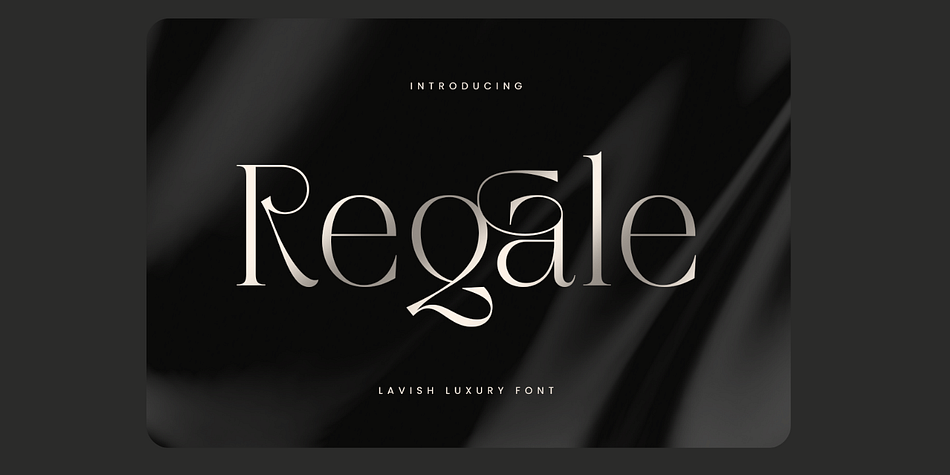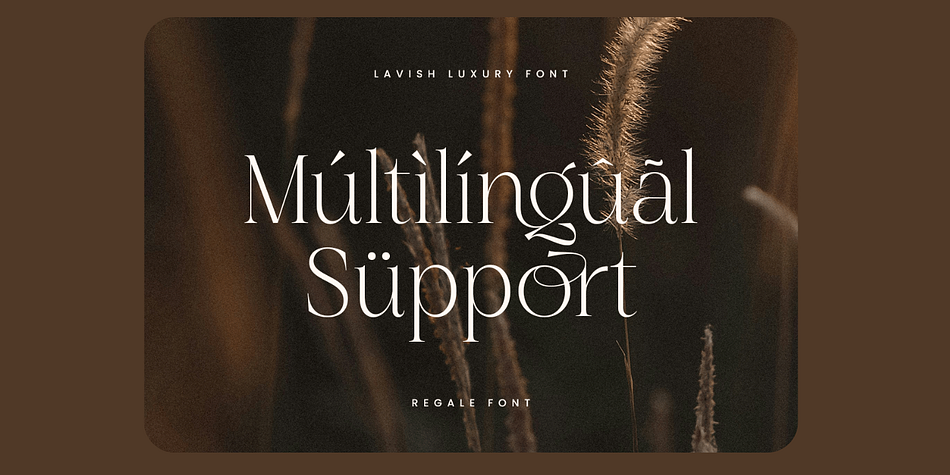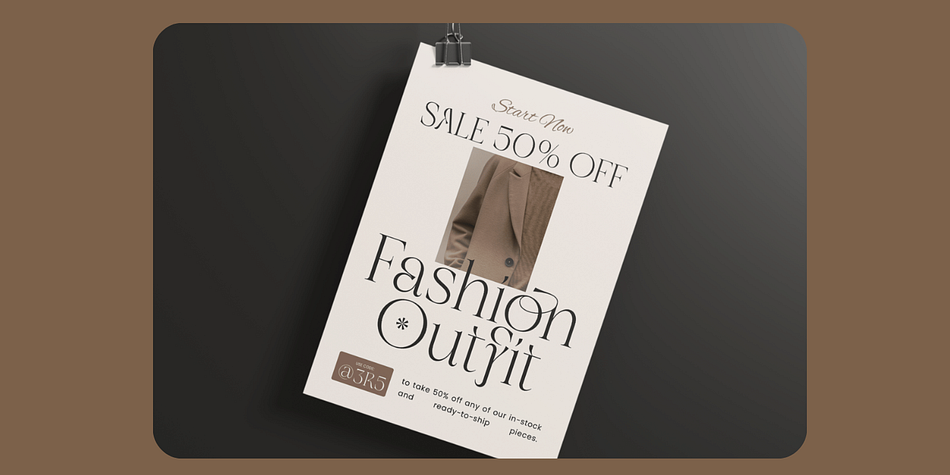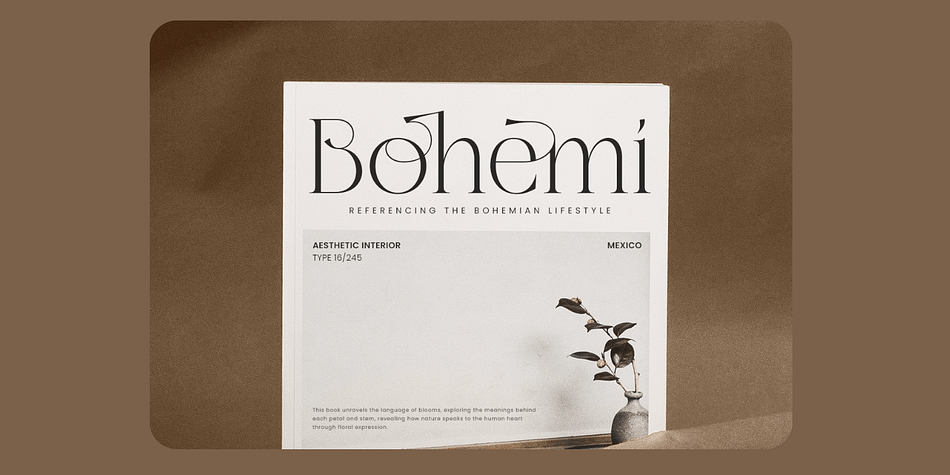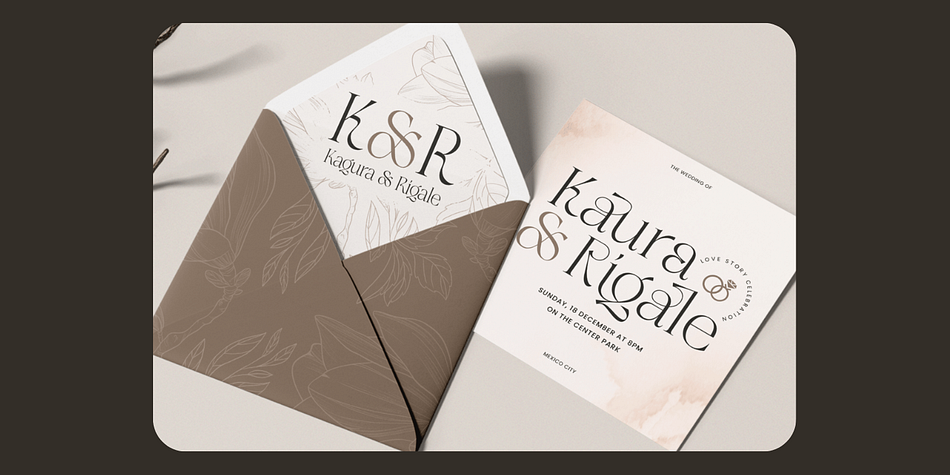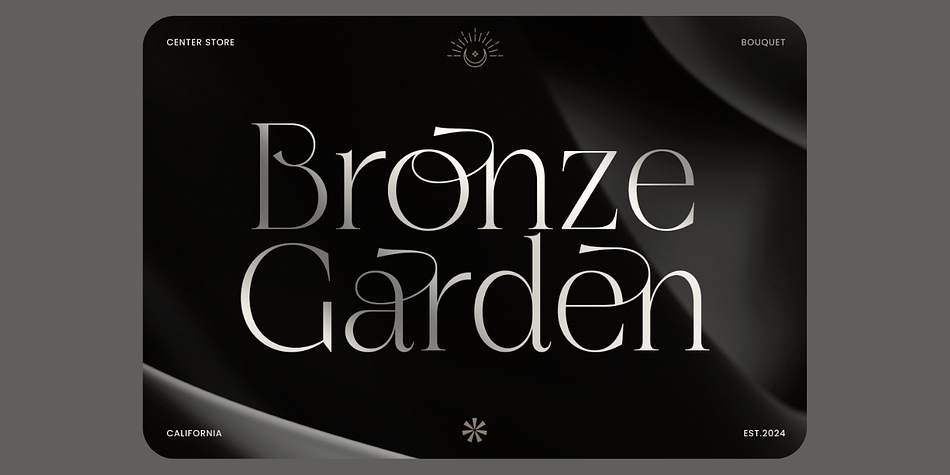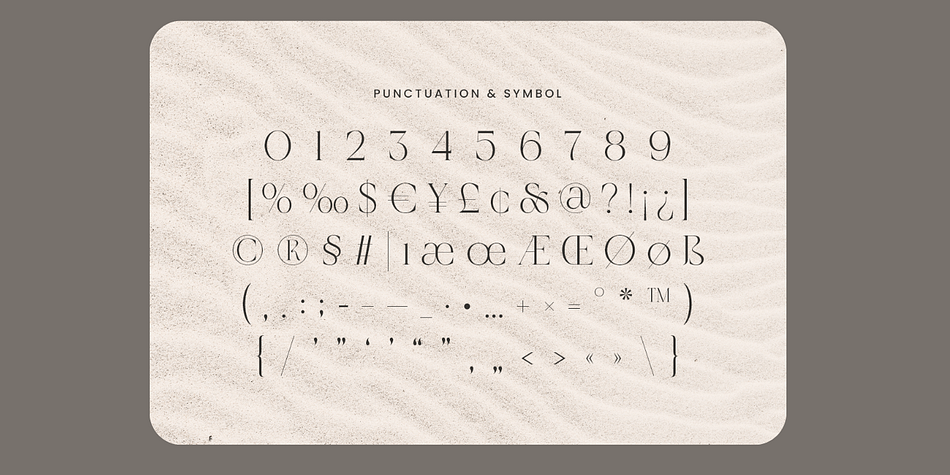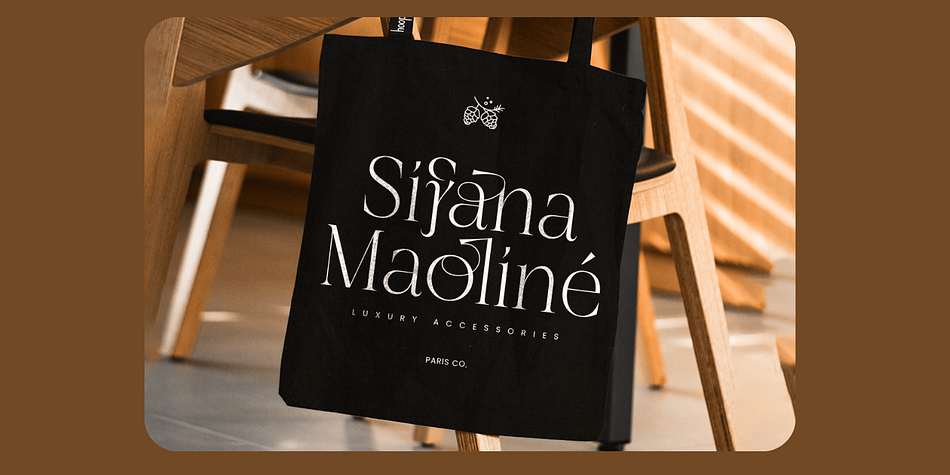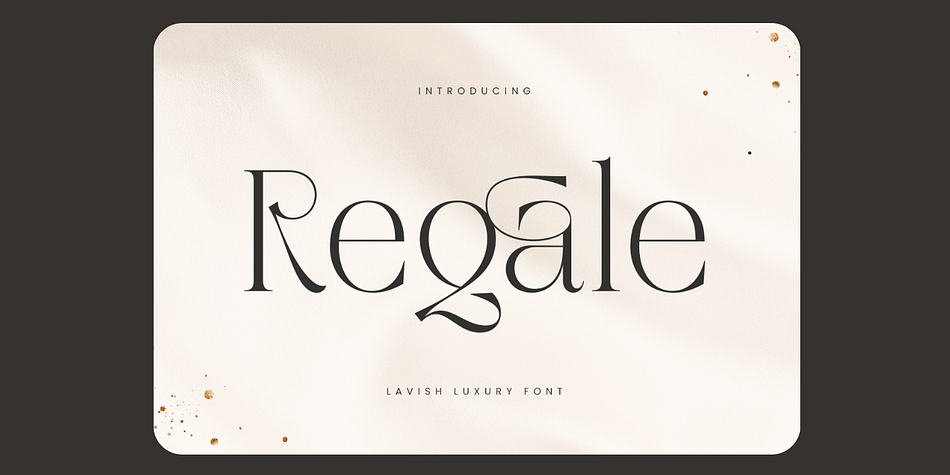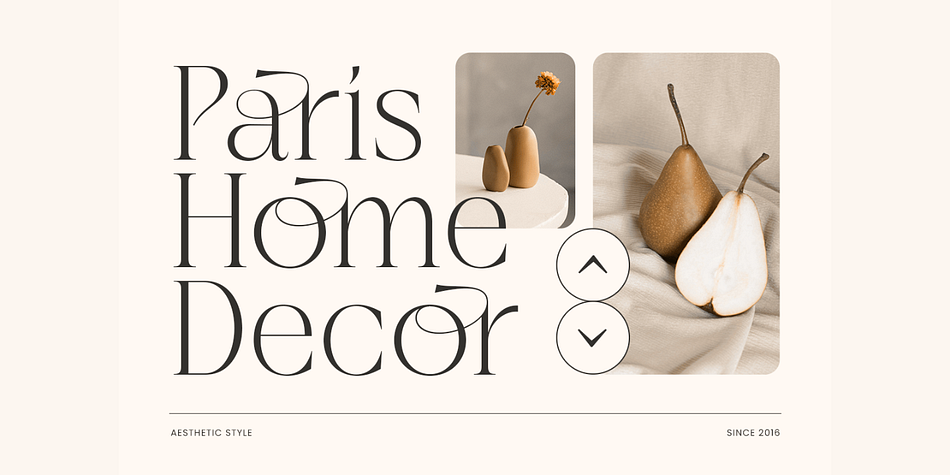
Regale – Lavish Luxury Serif Typeface
Regale is a luxurious serif font meticulously crafted for designers seeking refined elegance and sophistication. With its graceful curves, intricate details, and premium styling, Regale is the perfect choice for high-end branding, upscale logos, editorial design, invitations, and more. It brings a regal touch to every letter, embodying timeless beauty with modern flair.
Drawing from classic calligraphy and modern design sensibilities, Regale balances traditional grace with contemporary appeal—making your creative work not just visually stunning, but unmistakably upscale.
✿ Key Features:
Elegant Character Design: Beautifully shaped letters with high contrast and detail.
Balanced Letterforms: Smooth curves and refined proportions ideal for luxury themes.
OpenType Features: Stylistic alternates and ligatures for enhanced versatility.
Multilingual Support: Wide range of language compatibility for global design use.
Full Character Set: Includes uppercase, lowercase, numbers, symbols, and punctuation.
✿ Perfect For:
Luxury Branding & Logos: Create a strong, elegant visual identity.
Editorial & Fashion Design: Ideal for magazines, catalogs, and high-end publications.
Wedding & Event Invitations: Add class and charm to your special day materials.
Product Packaging: Elevate cosmetics, fashion, jewelry, and luxury items.
Social Media Graphics: Stand out with sophisticated, polished posts.
Multilingual Support Includes:
Supports 60+ languages such as English, Spanish, German, Swedish, Dutch, Italian, Portuguese, Swahili, Somali, Filipino, Finnish, and many more.
Bring elegance, prestige, and timeless beauty to your designs with Regale – Lavish Luxury Serif Typeface. A font that doesn’t just speak sophistication—it defines it. ✨????